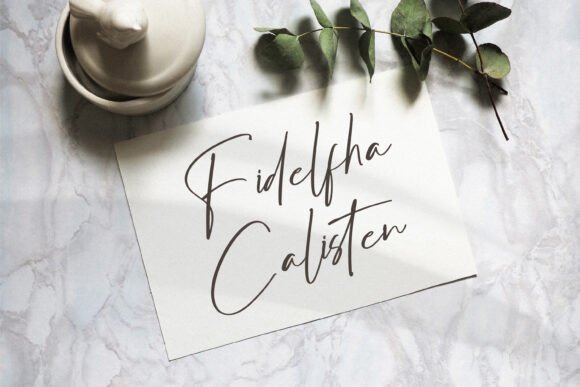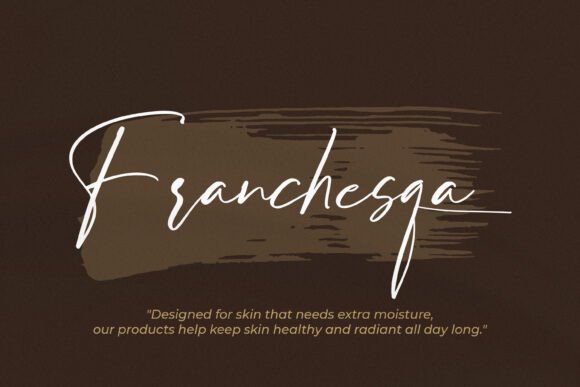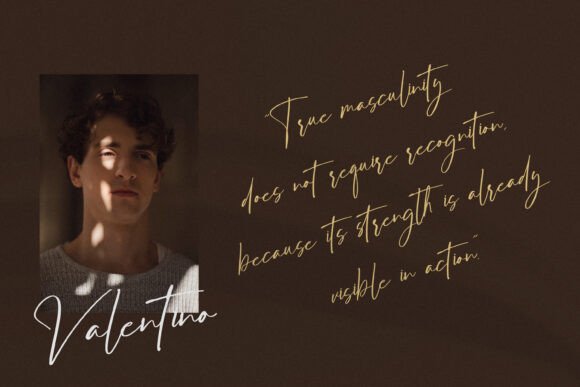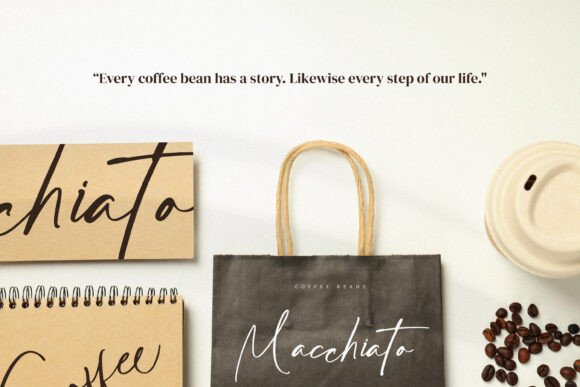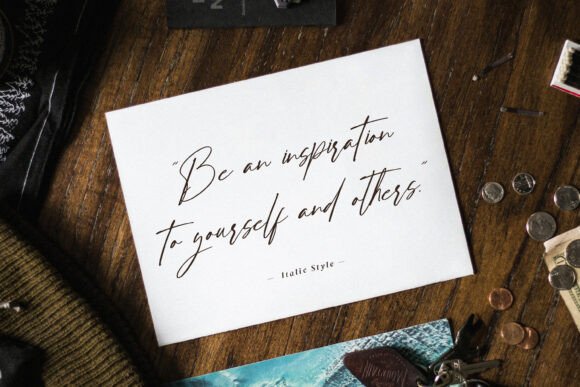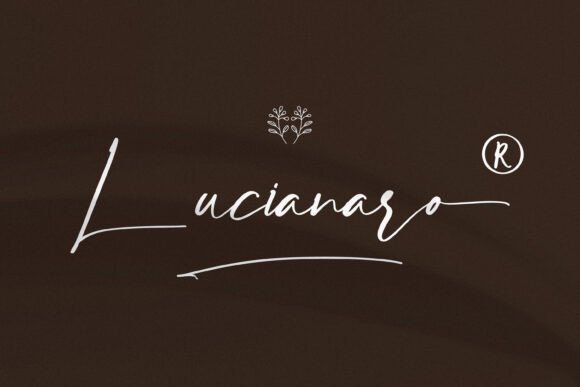
I still remember the project like it was yesterday. A client asked for a logo that exuded sophistication and elegance, with a personal touch that would set their brand apart. As I scoured font libraries and design marketplaces, I found myself on a mission to discover the perfect typeface. That’s when I stumbled upon Alisandro – Signature Modern Script, a stylish and elegant handwritten font that would change the game.
First Impressions: A Love Affair with Alisandro
Alisandro – Signature Modern Script is a stunning example of modern script typography. Its smooth, flowing lines give it a natural and classy look, perfect for logos, invitations, branding, or any design needing a personal, sophisticated touch. Here’s what I love about this font:
• ✨ Elegant and refined aesthetic
• ✅ Highly legible, even at smaller sizes
• 💫 Supports multiple languages and OpenType features
• 🎨 Extensive glyphs and stylistic alternates for creative freedom
The Honest Review: No Sugarcoating
While Alisandro is an exceptional font, it’s not without its quirks. Here are a few things to keep in mind:
• 🤔 Limited use in body text due to its script nature
• ⚠️ May require adjustments for optimal kerning and spacing
The Designer Behind Alisandro
While the origins of Alisandro are shrouded in mystery, it’s clear that the designer was inspired by the world of luxury and sophistication. With a keen eye for detail and a passion for elegant typography, the creator of Alisandro has given us a gift – a font that elevates our designs and adds a touch of class.
Q: What is the best use for Alisandro?
A: Alisandro excels in designs where elegance and sophistication are paramount, such as logos, invitations, and high-end branding.
Q: Can I use Alisandro for body text?
A: While Alisandro is highly legible, its script nature makes it better suited for headings and titles rather than body text.
Q: Does Alisandro support OpenType features?
A: Yes, Alisandro supports OpenType features, including glyphs and stylistic alternates, giving you creative freedom to customize your designs.
Q: Is Alisandro suitable for digital and print designs?
A: Absolutely! Alisandro’s versatility makes it an excellent choice for both digital and print designs, from social media graphics to business cards and brochures.